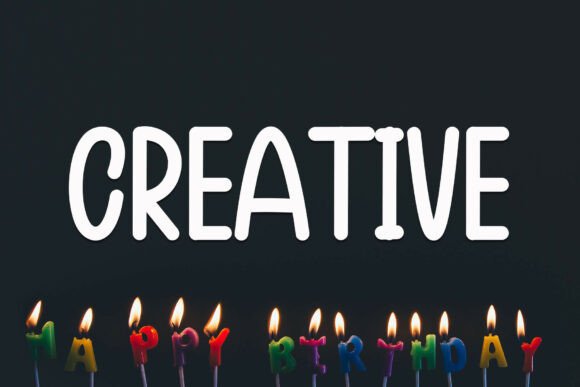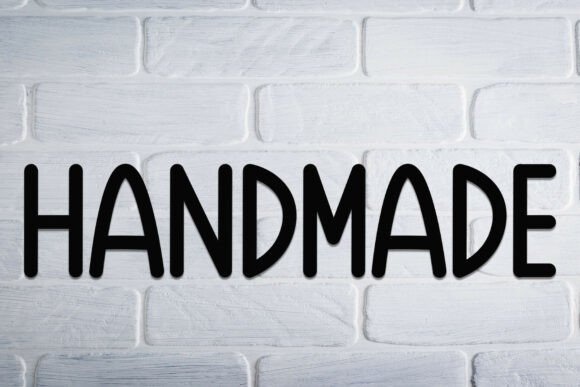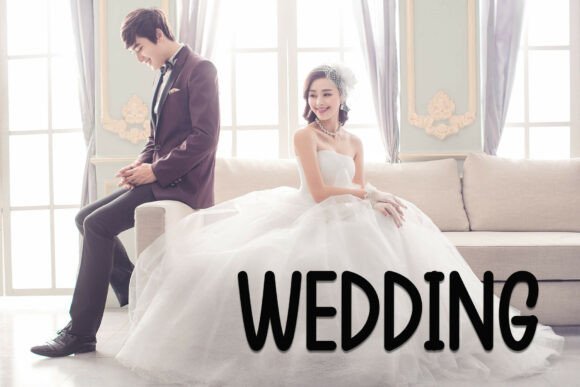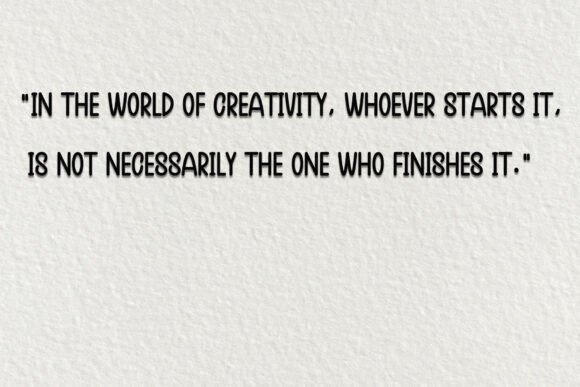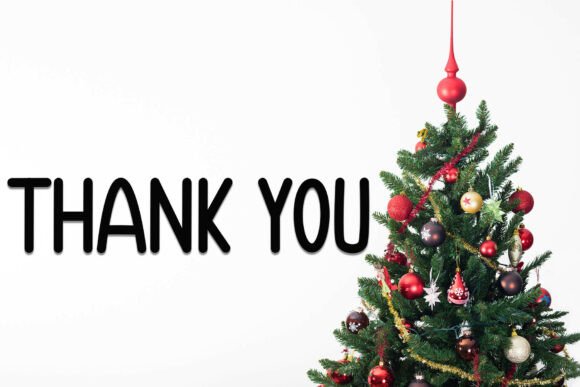
Introduction to Labubuhorror Font
Do you remember the thrill of staying up late on Halloween night, surrounded by the flickering lights of jack-o-lanterns and the creaks of the old house? It’s moments like these that inspire creativity and spark the imagination. For designers, finding the right font to capture that spooky yet playful essence can be a challenge. That’s where the Labubuhorror Font comes in – a high-quality design resource that brings a touch of whimsy to any creative project.
With its unique blend of rounded, slightly irregular letterforms, Labubuhorror Font is perfect for designers looking to add a mysterious edge to their work. Whether you’re creating a horror movie poster, a party invitation, or a brand identity with a touch of frightful fun, this font is sure to deliver. And the best part? It’s available for a free download, complete with a transparent background, making it easy to integrate into your design.
Key Features of Labubuhorror Font
- Unique and Spooky Design: Labubuhorror Font is a high-quality design resource perfect for any creative project that needs a touch of horror and eeriness.
- High-Resolution Font: The font is designed at a high resolution, making it suitable for use in a variety of creative projects, from posters to digital art.
- Perfect for Horror-Themed Projects: Labubuhorror Font is specifically designed for horror-themed projects, making it an excellent choice for designers and artists working on a spooky or supernatural project.
Honest Review: Labubuhorror Font
As a designer, I’ve had the opportunity to work with numerous fonts, but the Labubuhorror Font is definitely one that stands out. This high-quality design resource is perfect for any creative project that needs a touch of eeriness and sophistication.
One of the things I love about the Labubuhorror Font is its versatility. It can be used for a variety of applications, from horror-themed posters to gothic-inspired branding. The font’s bold and eerie feel makes it a great addition to any design project.
Here are some of the things that work well with the Labubuhorror Font:
- High-quality design: The font is crisp and clear, making it perfect for large-scale prints or digital displays.
- Limited character set: The font only includes a limited set of characters, which may make it difficult to use for longer text blocks.
- Not ideal for body text: The font’s bold and dramatic feel makes it better suited for headlines and titles rather than body text.
Overall, I’m impressed with the Labubuhorror Font. Its unique design and high-quality feel make it a great addition to any design project. With a little creativity, you can use this font to create truly haunting and memorable designs. ⚠️ Just be aware of its limitations, and you’ll be well on your way to creating some truly terrifying designs! ✨